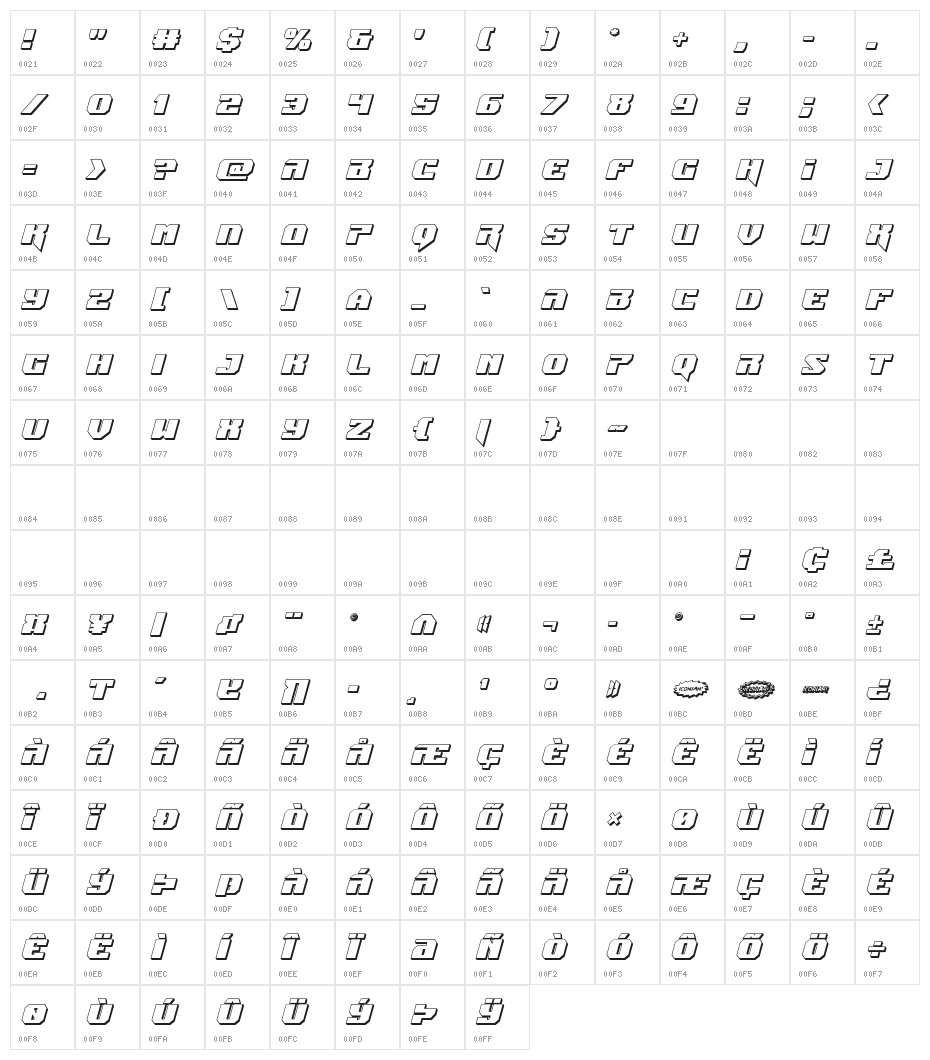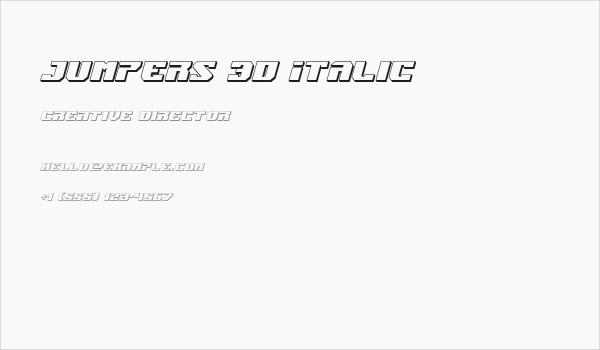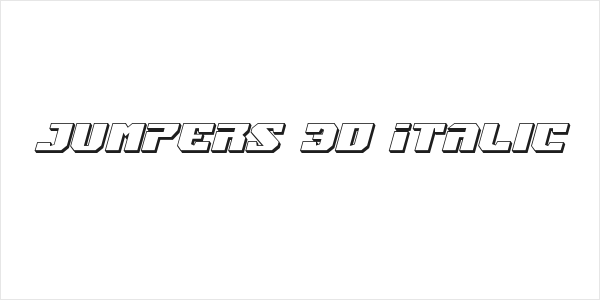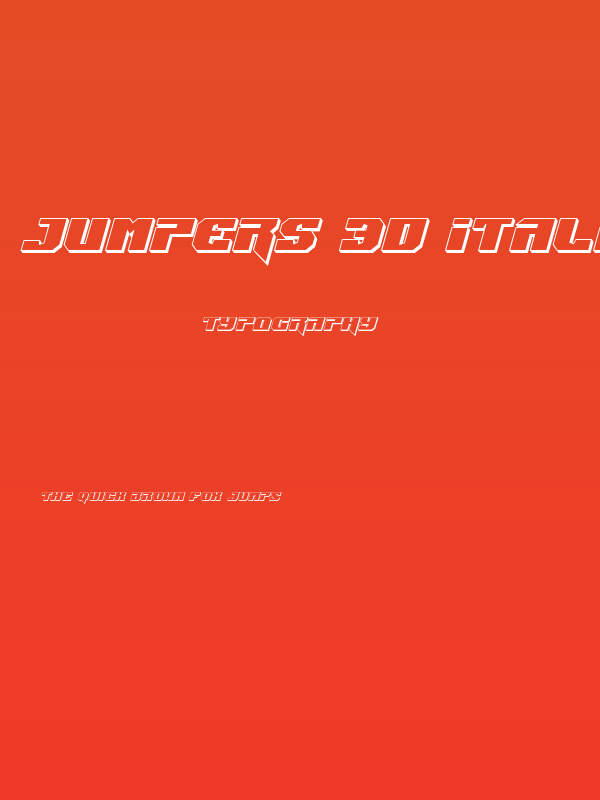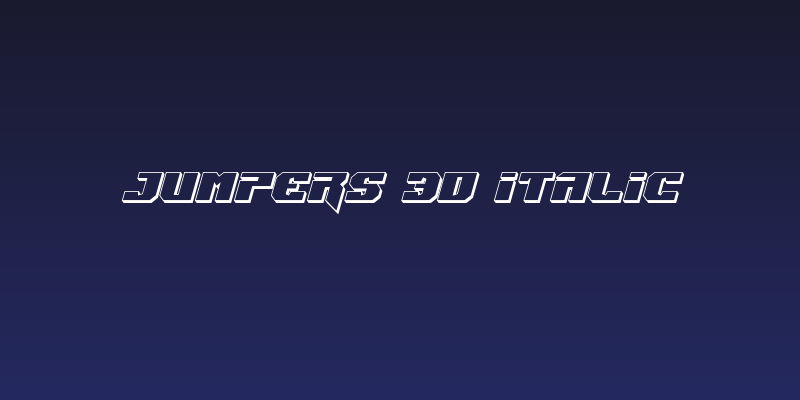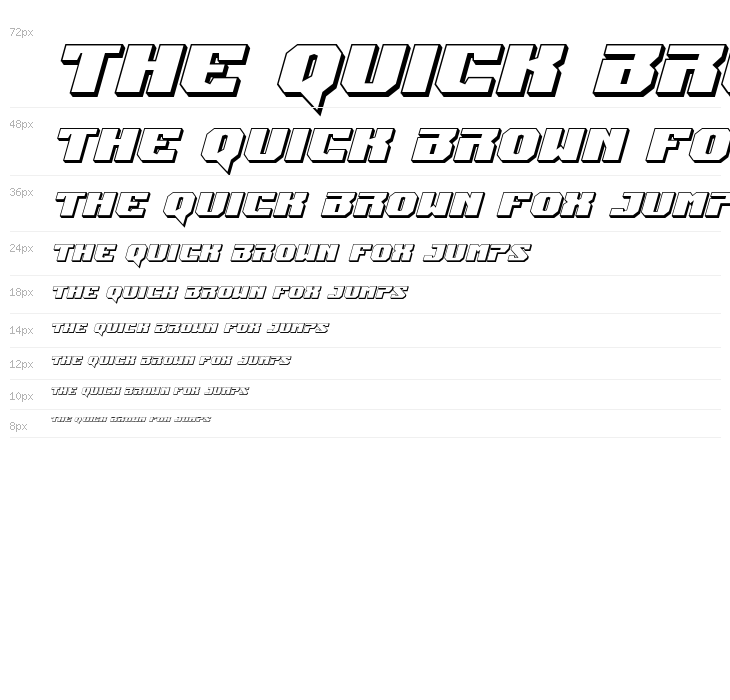
Jumpers 3D Italic Font
Jumpers 3D Italic Description
This font features a bold, three-dimensional design with a strong italic slant, giving it a dynamic and energetic appearance. The characters are outlined, creating a shadow effect that enhances the 3D illusion. The style is geometric and angular, with sharp edges and a futuristic feel. The uppercase letters are particularly striking, with a consistent thickness throughout, while the numbers and special characters maintain the same bold and impactful style. This font is ideal for projects that require a modern and eye-catching look, such as video game titles, posters, or branding for tech companies.
| Proposed Projects | Ideal for video game titles, tech branding, posters, and dynamic logos. |